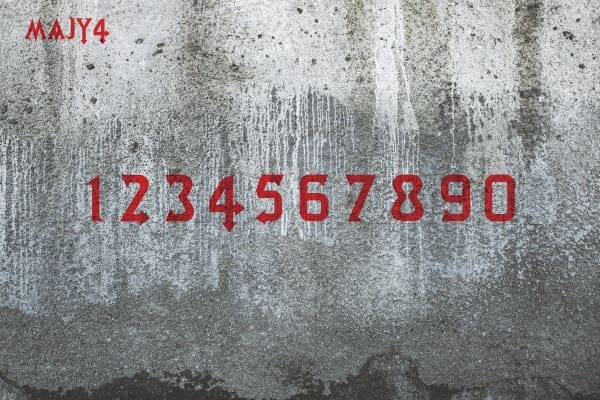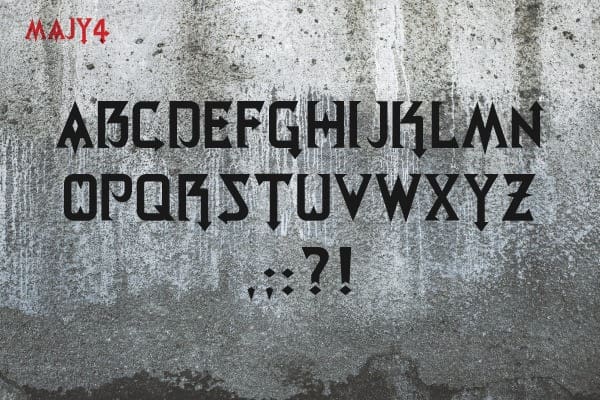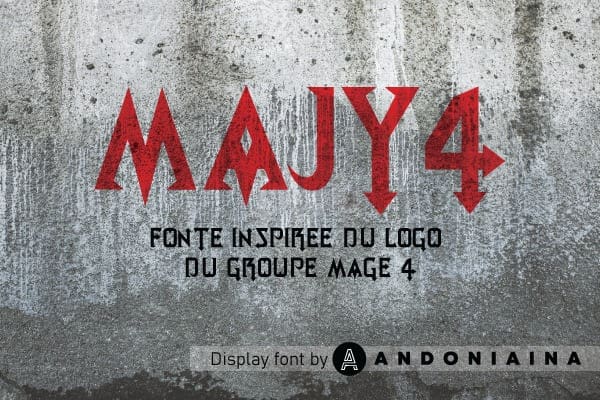
MAJY 4 Font is a beautiful display font that has multiple styles for anyone’s taste. This design will help your product stand out, making it the star of the show. Ideal for logos, handwritten quotes, product packaging, header, poster, merchandise, social media & greeting cards.
MAJY 4 Font